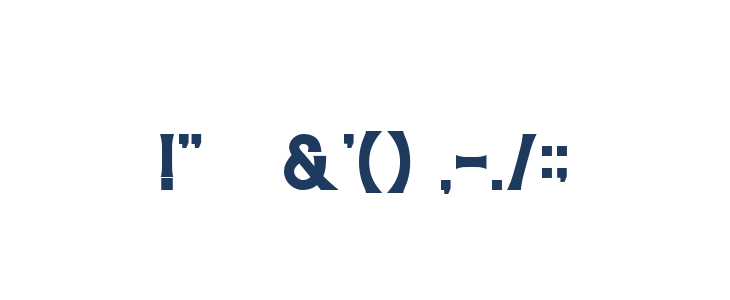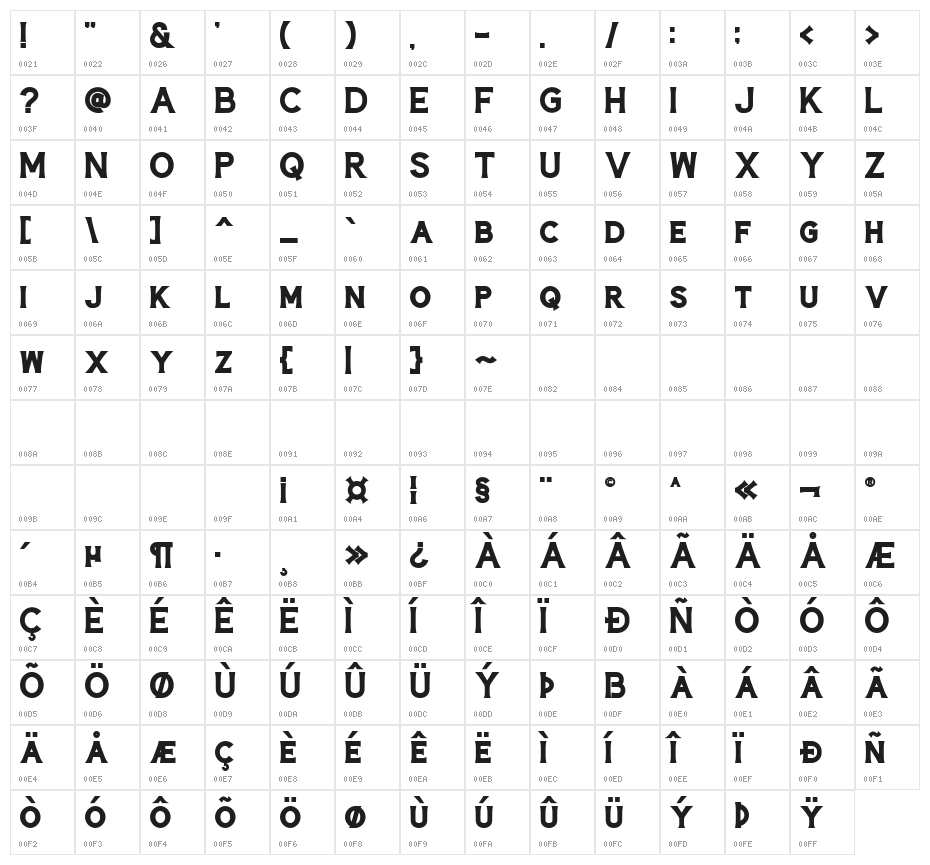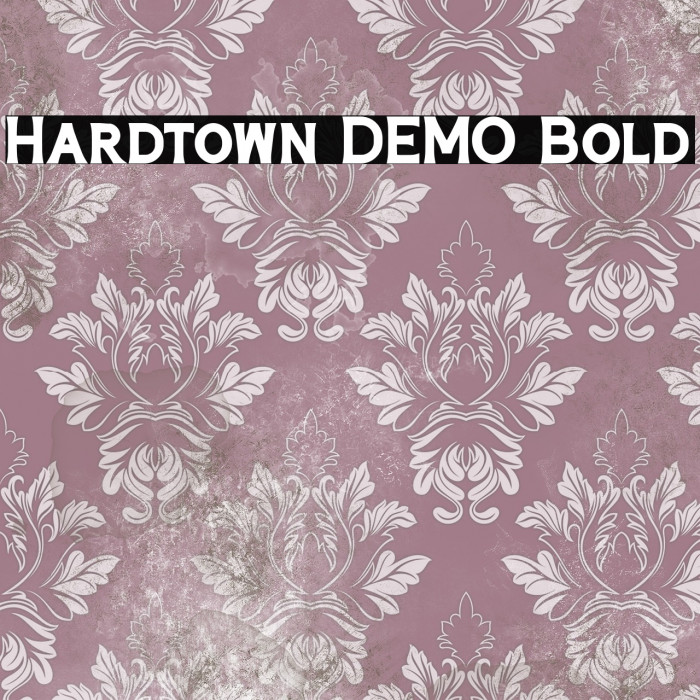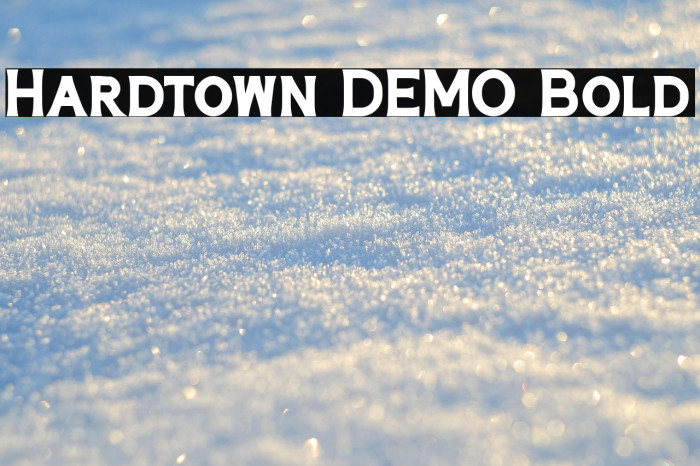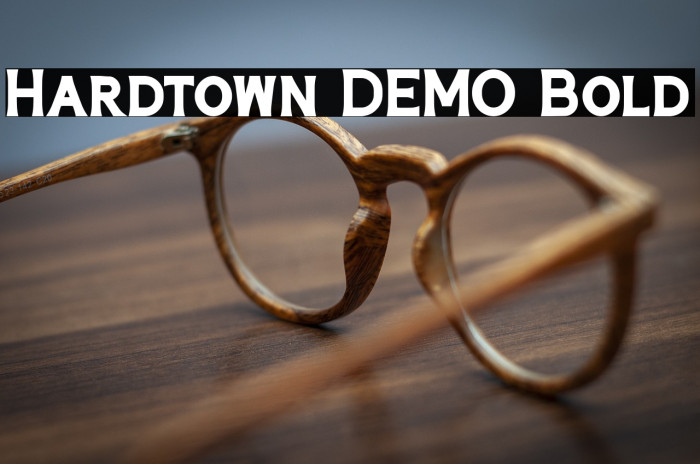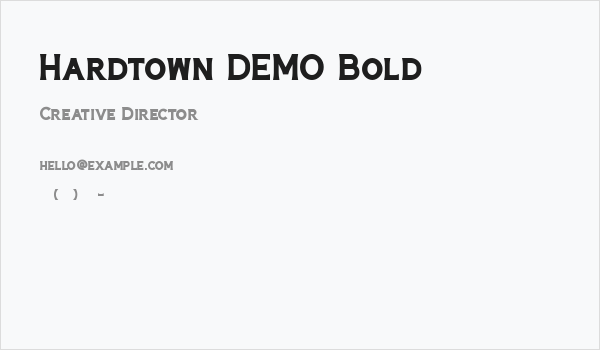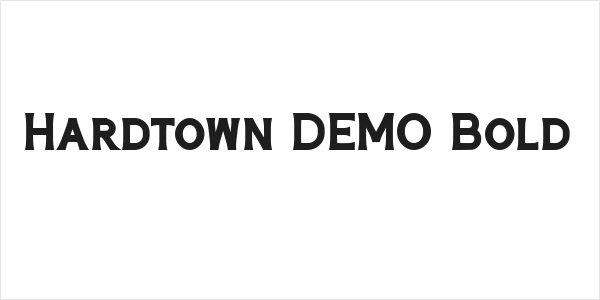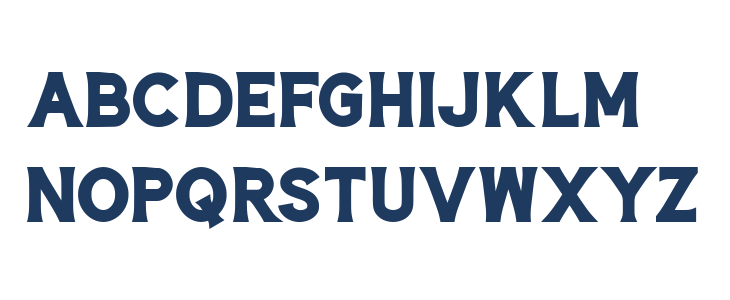
Hardtown DEMO Bold Font
Hardtown DEMO Bold Description
This font features a bold and impactful design, characterized by thick strokes and a strong presence. The uppercase letters are uniformly bold, with a slight angularity that adds a modern edge. The characters are well-defined, with consistent stroke widths that create a cohesive look. The font's boldness makes it suitable for attention-grabbing headlines and titles. The special characters maintain the same bold style, ensuring uniformity across all text elements. Its design is straightforward yet assertive, making it ideal for projects that require a strong visual impact.
| Proposed Projects | Ideal for posters, headlines, branding, and any project requiring a bold statement. |